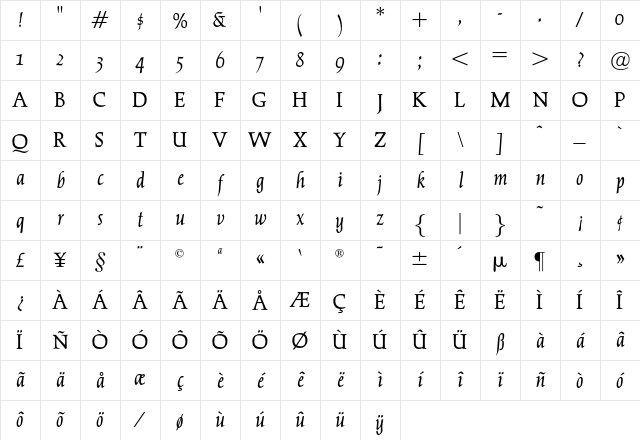
OPTICather Italic Free Font
OPTICather Italic
OPTICather Family
OPTICather Italic
Design Context for OPTICather
OPTICather is a composed and adaptable typeface that performs quietly and consistently across a wide range of design contexts. The slanted form adds forward momentum and visual energy.
Pro Tip: Use OPTICather for emphasis, pull quotes, and subheadings where its slanted energy can add rhythm to the layout.